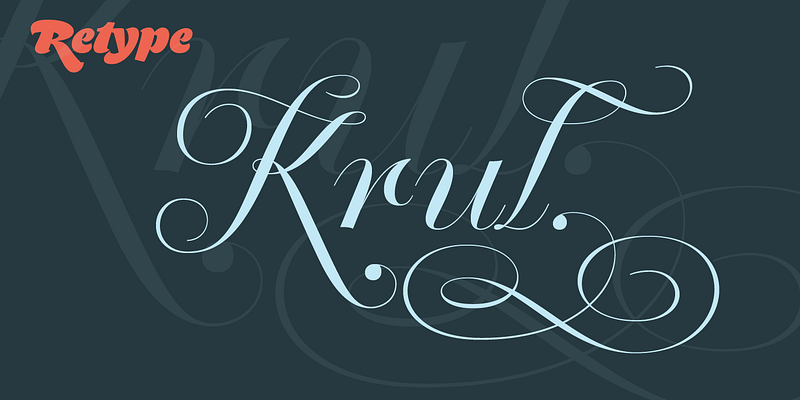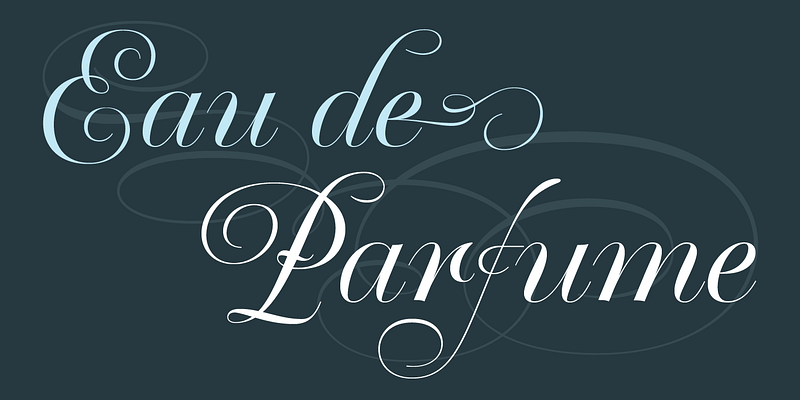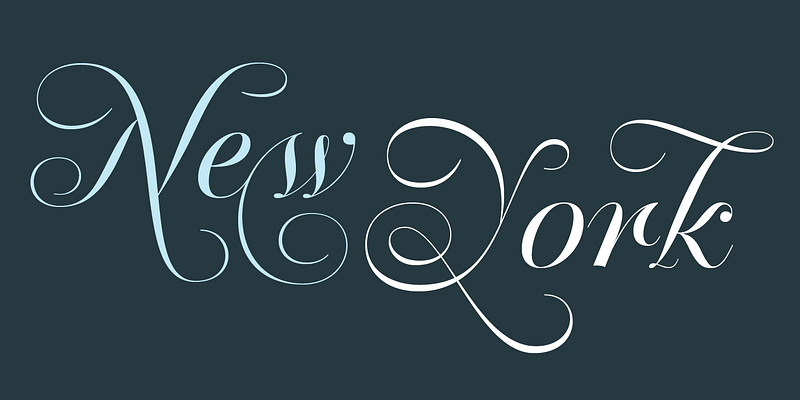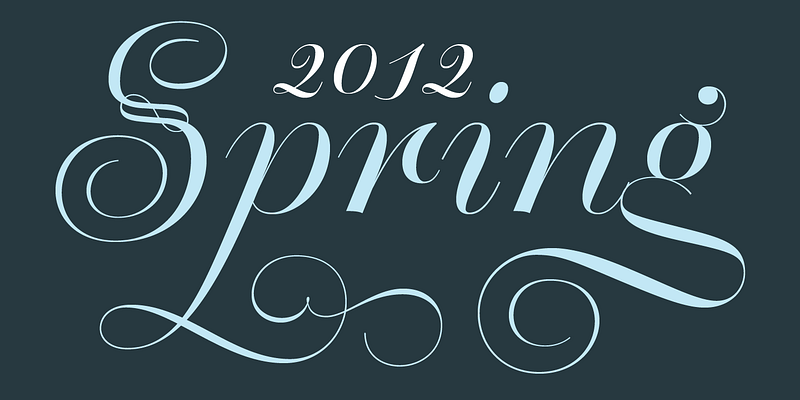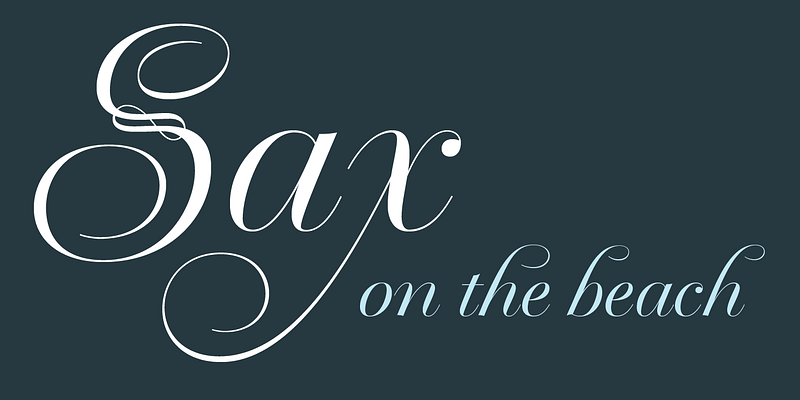
Krul takes its cue from the signature curly letters that appear in the windows of Amsterdam’s traditional “brown” bars. Rather than a literal digitization, Ramiro Espinoza’s take on these forms is an idealized interpretation that incorporates the style’s breathtaking gestural acrobatics and quirks. The character set features an extended set of standard ligatures, plus discretionary ligatures that create surprising connections between letter pairs. The capitals are available in an additional style with increased ornamentation. And standalone ornaments beautifully complement the letters. Krul’s flamboyance sets it apart from more conventional copperplate script faces. Retype, 2012.
Retype Foundry is a two-person independent digital type foundry based in The Hague. Ramiro Espinoza, who founded the company in 2007, manages it in close collaboration with his partner, editorial designer Paula Mastrangelo. Retype’s catalogue reflects the pair’s interest in editorial design and a keen familiarity with Dutch type history.
Discerning design studios and art directors looking for solid, modern-looking type families will find in Retype a well-crafted and diverse selection of typefaces, many of which have won design awards. The foundry’s work meets even the most exacting requirements for aesthetics, legibility, and originality.